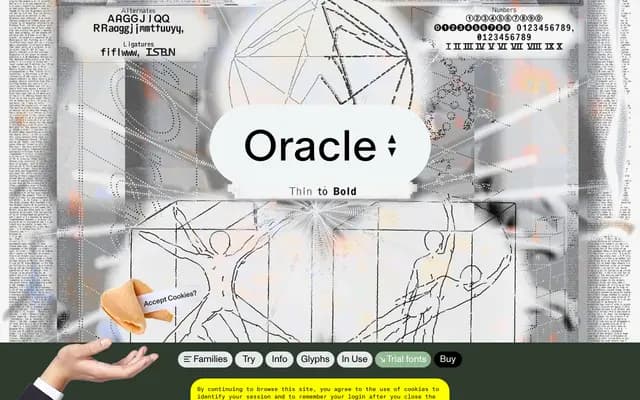
ABC Oracle
Dinamo Typefaces · Dinamo (Johannes Breyer) with Andree Paat, Thy Ha, Chi-Long Trieu, Daria Cohen · 2017
A two-family humanist sans by Johannes Breyer: an elegant text sans plus Oracle Triple, a third-unit grid experiment in monospaced rhythm.
A two-family humanist sans by Dinamo's Johannes Breyer with Andree Paat, Thy Ha, Chi-Long Trieu and Daria Cohen. Standard Oracle is an elegant sans serif with friendly, smooth contours and subtle contrast, available in nine weights with italics and a deep set of stylistic alternates. Oracle Triple takes the logic of monospaced letterforms to an extreme, segmenting the bounding box into thirds with different characters taking different numbers of units. Sits well across identity, exhibition and editorial work that wants a calm humanist sans plus a more eccentric monospaced companion.
Dinamo describes Oracle as two families that began in the same place but wandered in different directions: an elegant sans serif with friendly, smooth contours and subtle contrast, and Oracle Triple, a strict-rhythm exploration that segments the bounding box into thirds with characters taking different numbers of units.